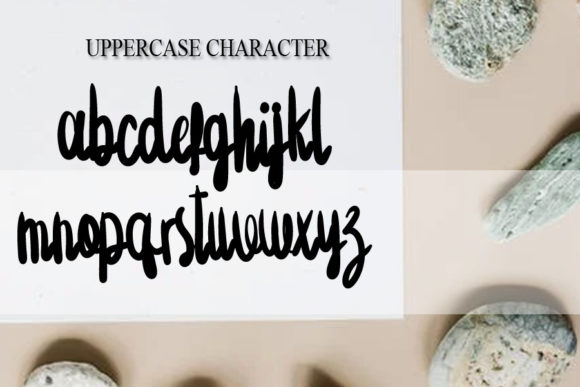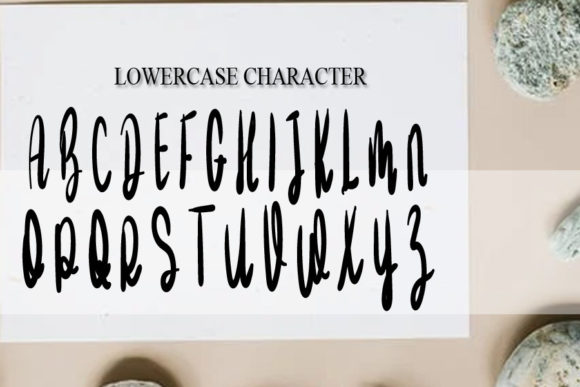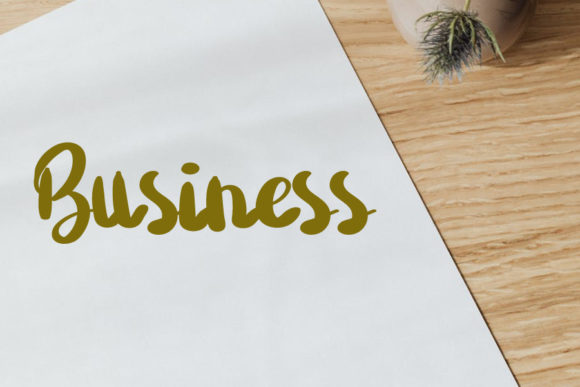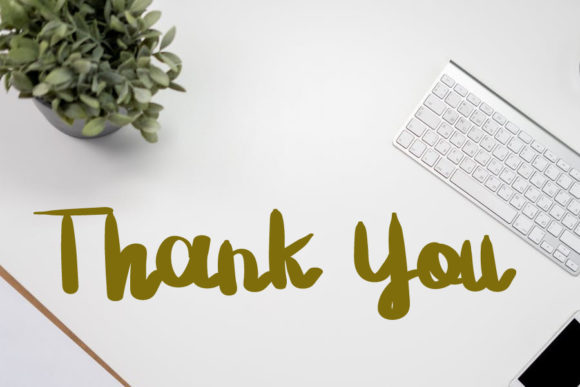
Discover the Timeless Charm of Aisyah Font
Have you ever been inspired by the beauty of a handwritten note from a loved one, or the elegance of a vintage sign? Those moments can spark a creative journey that takes us to new heights. For designers, the quest for the perfect font is a never-ending adventure. And that’s where the Aisyah Font comes in – a flowing, thick lettered, and neat handwritten font that can elevate your designs to new levels.
Whether you’re creating logos, wedding invitations, or signage, Aisyah Font is a versatile choice that can add a touch of personality to your work. Its unique characteristics make it valuable for designers who want to stand out from the crowd and create something truly special. With the Aisyah Font, the possibilities are endless, and we’re excited to explore its many uses in this article.
- Font Family: Aisyah is a modern, elegant script font designed for use in various digital and print applications.
- Character Set: Includes a wide range of characters, including Latin, Cyrillic, and Greek alphabets, as well as various punctuation marks and symbols.
- Unique Characteristics: Aisyah features a distinctive, flowing script style with subtle flourishes and connections between letters, creating a beautiful and elegant look.
Aisyah Font Review
I recently had the chance to work with the Aisyah font, and I must say it’s a unique addition to any design project. Here are some of its standout features:
- ✨ Elegant and refined aesthetic that’s perfect for luxury brands and high-end designs
- ✨ Beautifully crafted calligraphy elements that add a touch of sophistication
- ✨ Wide range of weights and styles, making it versatile for various design applications
However, like any font, Aisyah has its limitations:
- ⚠️ May not be suitable for body text due to its ornate nature
- ⚠️ Limited language support, which may restrict its use in multilingual projects
- ⚠️ Some characters may not render correctly in certain font sizes or resolutions
Overall, I think Aisyah is a great choice for designers looking to add a touch of elegance and sophistication to their work. While it may not be suitable for every project, its unique features and high-quality design make it a valuable addition to any font collection.
Playfair Display is an elegant, luxurious serif font perfect for high-end branding, magazines, and advertising. It features intricate details and ornate flourishes, making it ideal for creating a sense of sophistication and refinement. In comparison to Aisyah Font, Playfair Display is more formal and luxurious, while Aisyah Font is more modern and minimalist.
Great Vibes is a beautiful, elegant script font that exudes a sense of warmth and sophistication. It’s perfect for creating a unique and eye-catching visual identity for brands, packaging, and event invitations. Compared to Aisyah Font, Great Vibes is more fluid and expressive, while Aisyah Font is more geometric and modern.
Carolyna Pro is a modern, elegant sans-serif font that’s perfect for creating a clean and sophisticated visual identity. It’s ideal for branding, advertising, and editorial design, and features a unique blend of geometric and organic elements. In comparison to Aisyah Font, Carolyna Pro is more polished and refined, while Aisyah Font is more edgy and avant-garde.